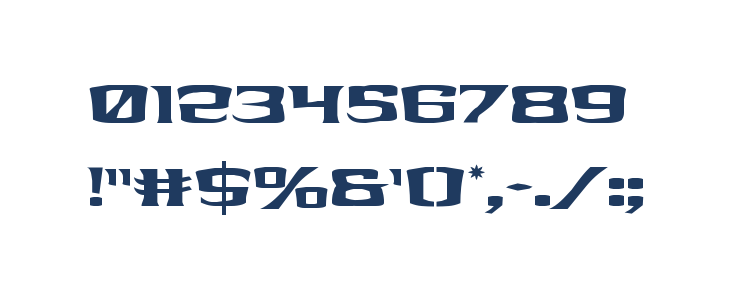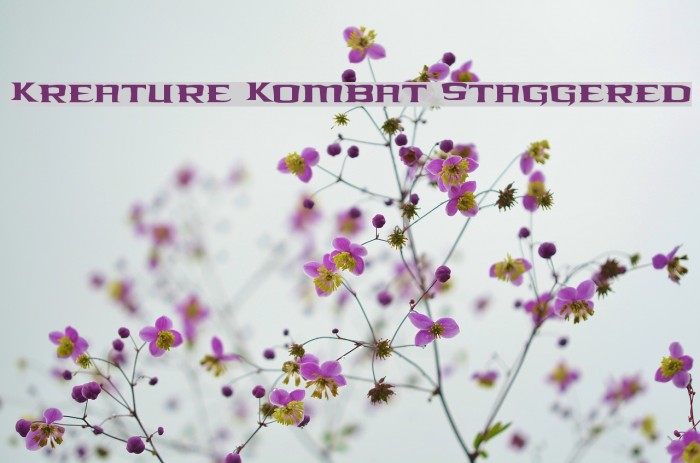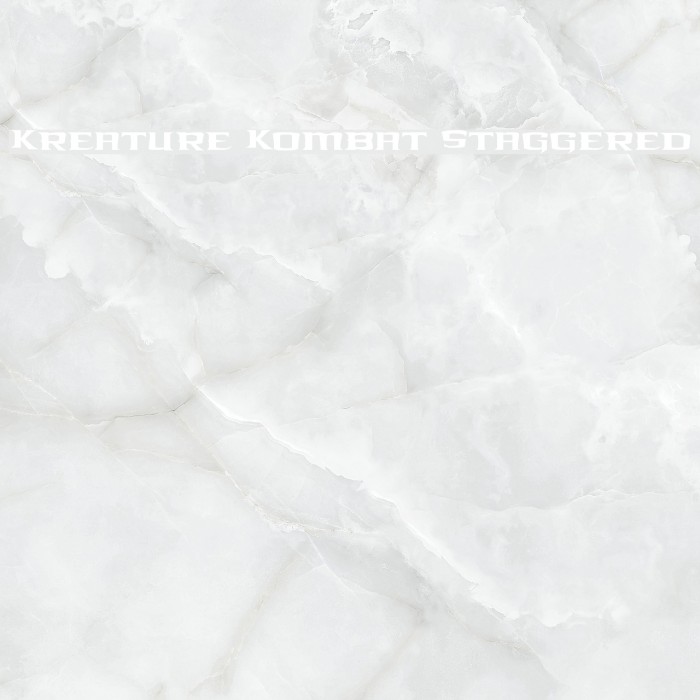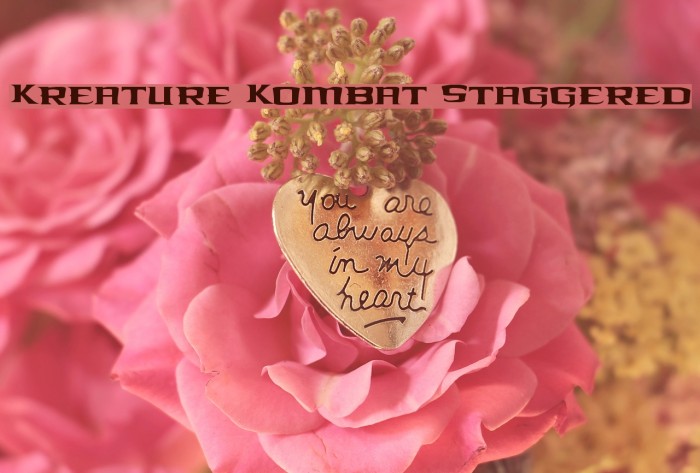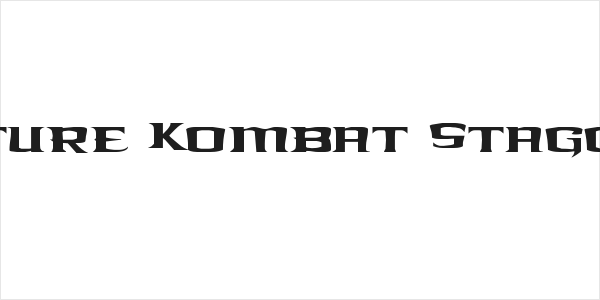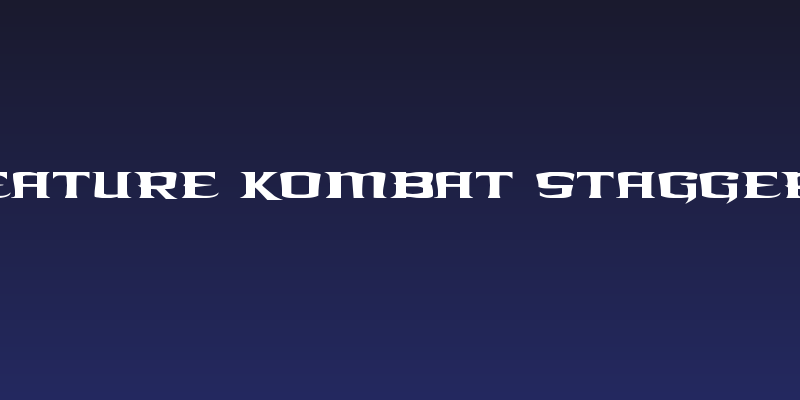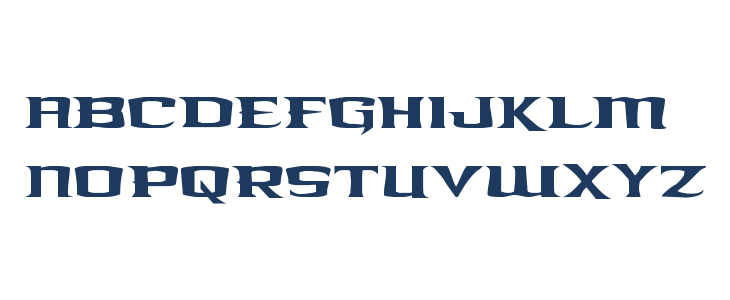
Kreature Kombat Staggered Font
Kreature Kombat Staggered Description
This font features a bold and aggressive style with sharp, angular edges and a slightly staggered appearance. The characters are designed with a strong presence, making them ideal for attention-grabbing headlines or titles. The uppercase letters are particularly striking, with a unique flair that adds a sense of motion and energy. The numbers and special characters maintain the same boldness and angularity, ensuring consistency across all text elements. The overall design is reminiscent of a modern, edgy aesthetic, suitable for projects that require a dynamic and impactful visual statement.
| Overall Style | Modern, Edgy |
| Proposed Projects | Ideal for video game titles, movie posters, branding for extreme sports, or any project needing a bold, dynamic look. |